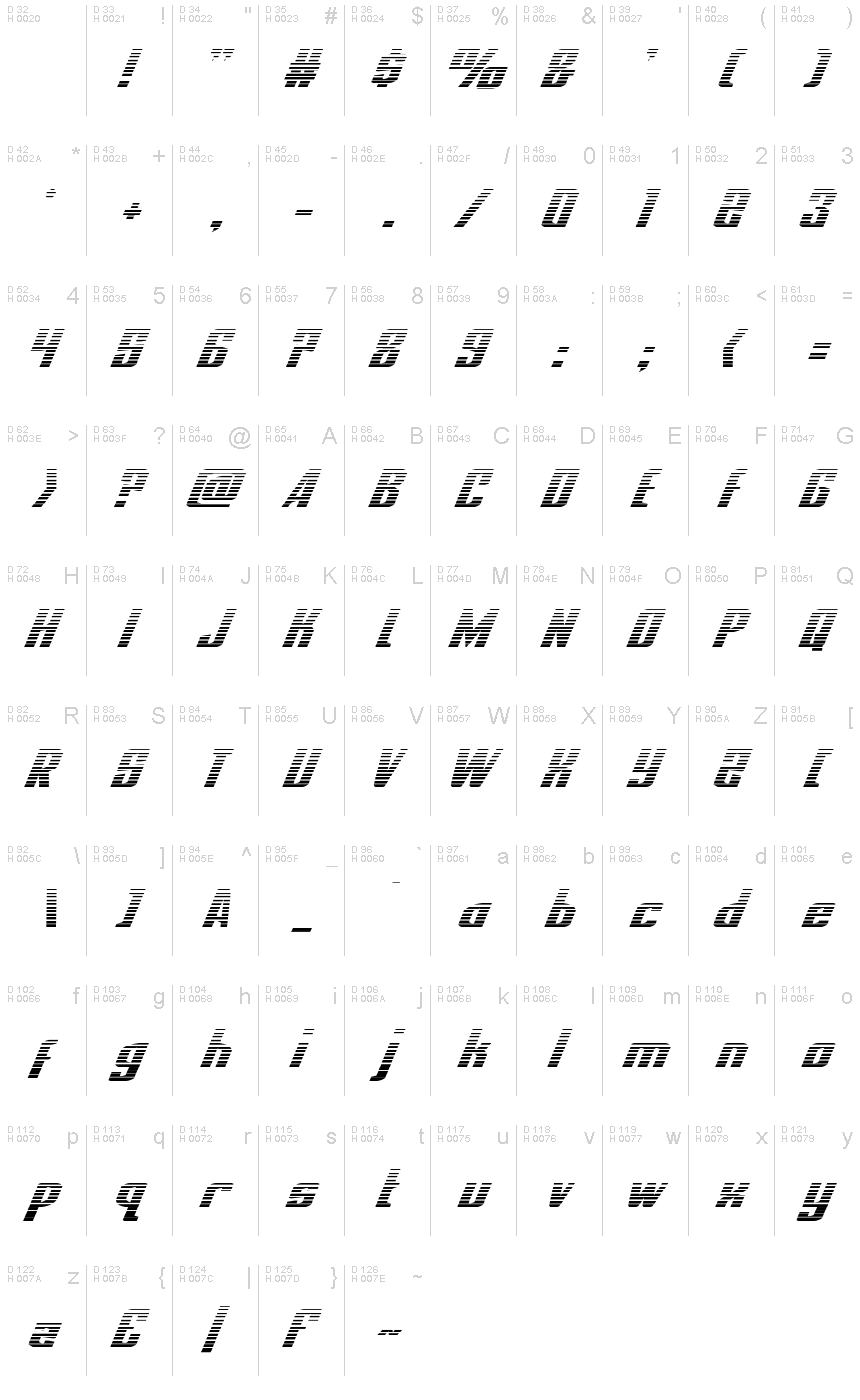
National Express Gradient Ital
National Express Gradient Italic, crafted by Iconian Fonts, stands out within the National Express family for its bold and condensed form. This techno display typeface exudes a futuristic vibe, enhanced by its dynamic italic slant and gradient pattern. The eye-catching style blended with modern aesthetics makes it a superb choice for titles, branding materials, and tech-oriented projects.
Ideal for creating impactful headlines and providing a sleek look to any design context, National Express Gradient Italic leverages its striking visual appeal to draw in readers instantly. Whether applied in digital interfaces or printed media, this font ensures that your message not only stands out but also communicates a sense of innovation and modernity.